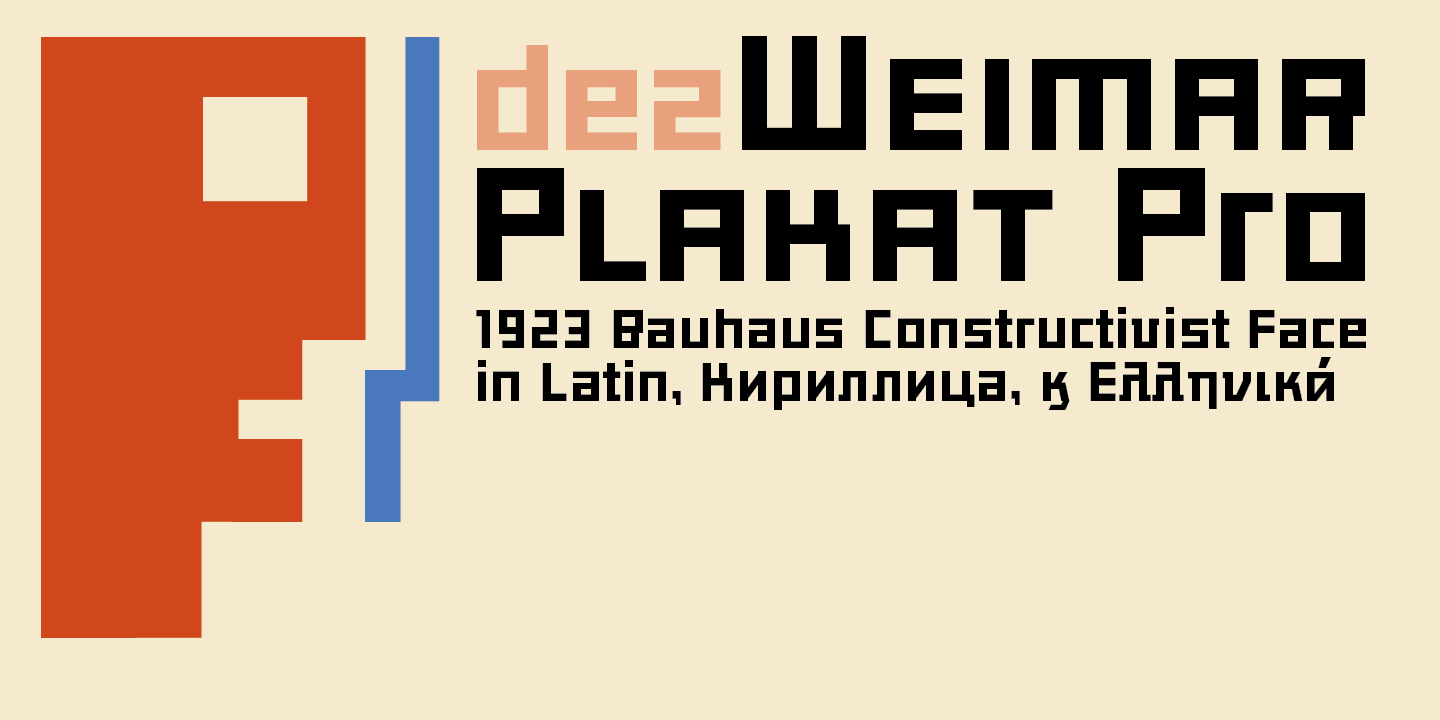
Dez Weimar Plakat Pro
About Dez Weimar Plakat Pro
Dez Weimar Plakat Pro was inspired by a 1923 Weimar Bauhaus exhibition poster. It is in strict keeping with Constructivist rectilinear thought of that time. Dez Weimar Plakat Pro includes multiple language support including Greek and Cyrillic– contains…